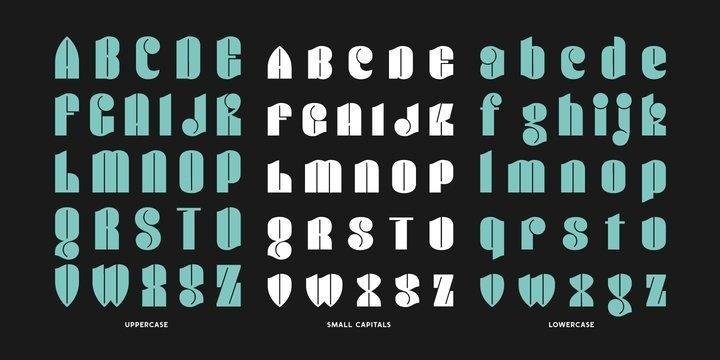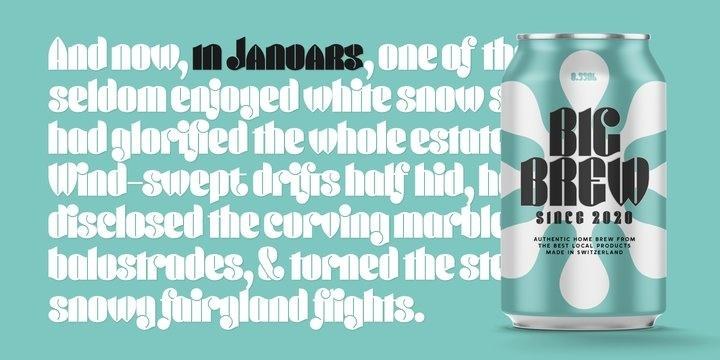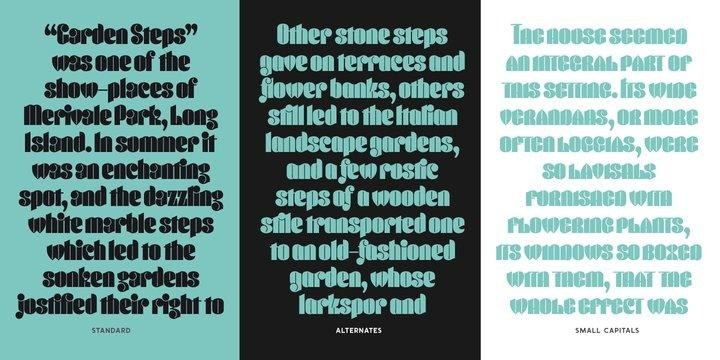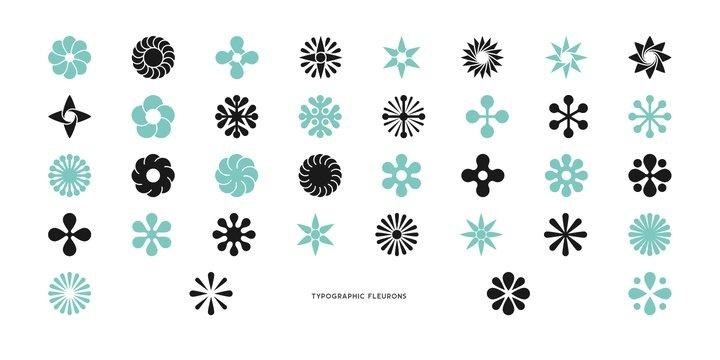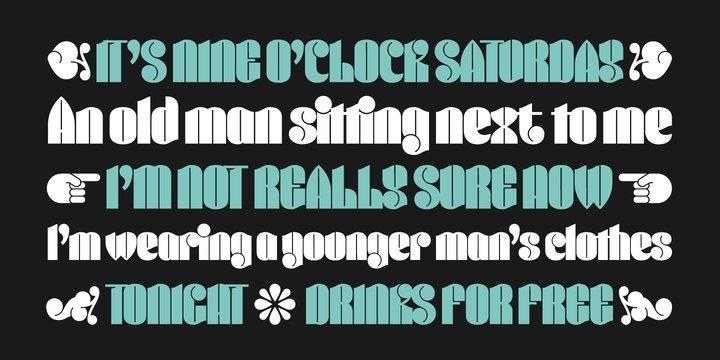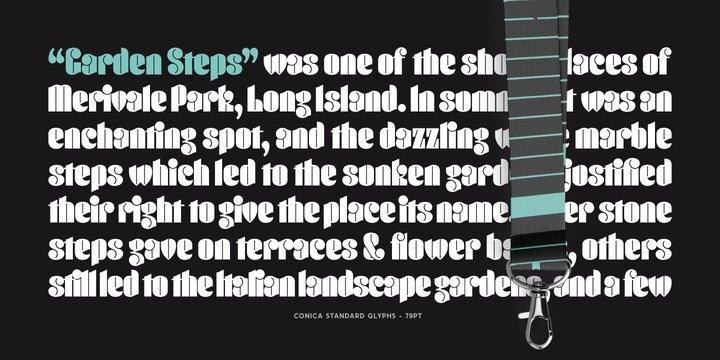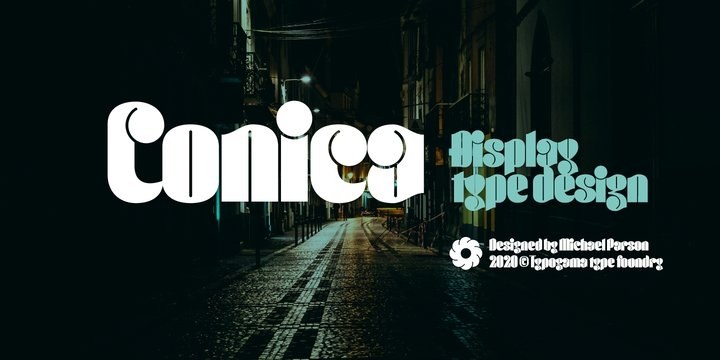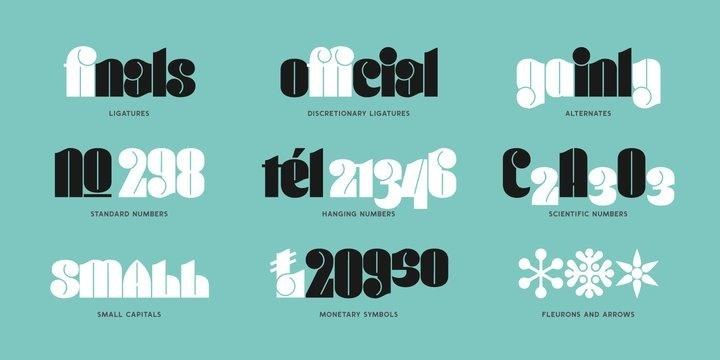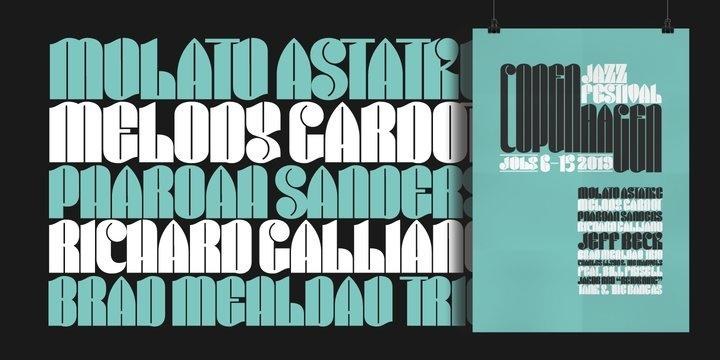
Conica Font
Conica is a bold, condensed typeface that aims to grab your attention. By playing with heavy, dark shapes and small counters, this single weight typeface explores the contrast between defined shapes and gentle curves to produce a surprising headline font. It equally includes a range of OpenType features, with a set of small capitals, stylistic alternates and ligatures, users can choose which forms best suit their needs. Conica includes an extended Latin glyph set covering most Latin based languages.